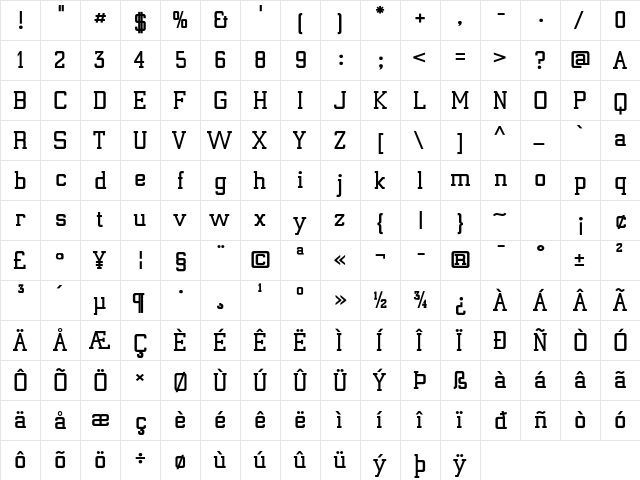
Electrum ADF Exp Bold
| Foundry | Arkandis Digital Foundry. |
| Designer | Hirwen HARENDAL |
Design Context for Electrum ADF Exp Typeface
Electrum ADF Exp offers clean, dependable letterforms without strong stylistic allegiance, making it a practical choice for designers who need flexibility. Its bold stroke weight gives it real presence on the page.